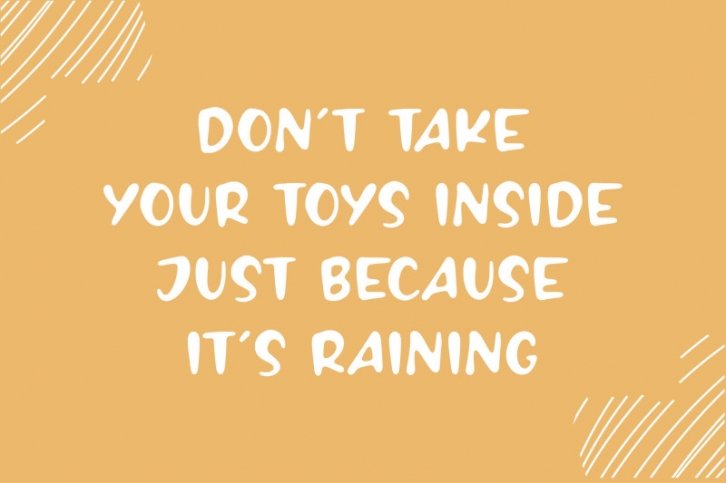
Introducing by Balpirick Studio.
Proudly Present, FRANKY TOYS Font.
FRANKY TOYS is a Playful Handbrushed Font.
FRANKY TOYS is perfect for product packaging, branding project, megazine, social media, wedding, or just used to express words above the background.